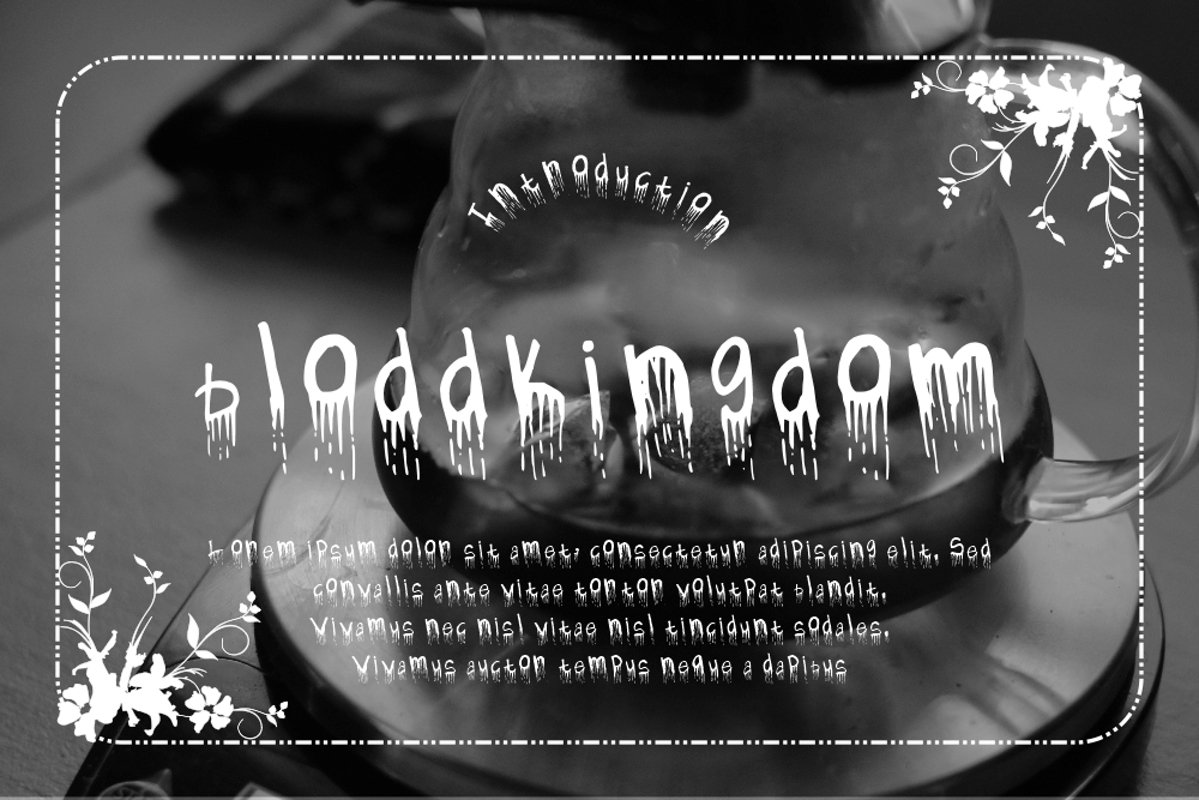
bloddkingdom
bloddkingdom Typeface is a Display type. It suitable for any vintage type needs and more Happy creating.Very suitable for you who do exploration